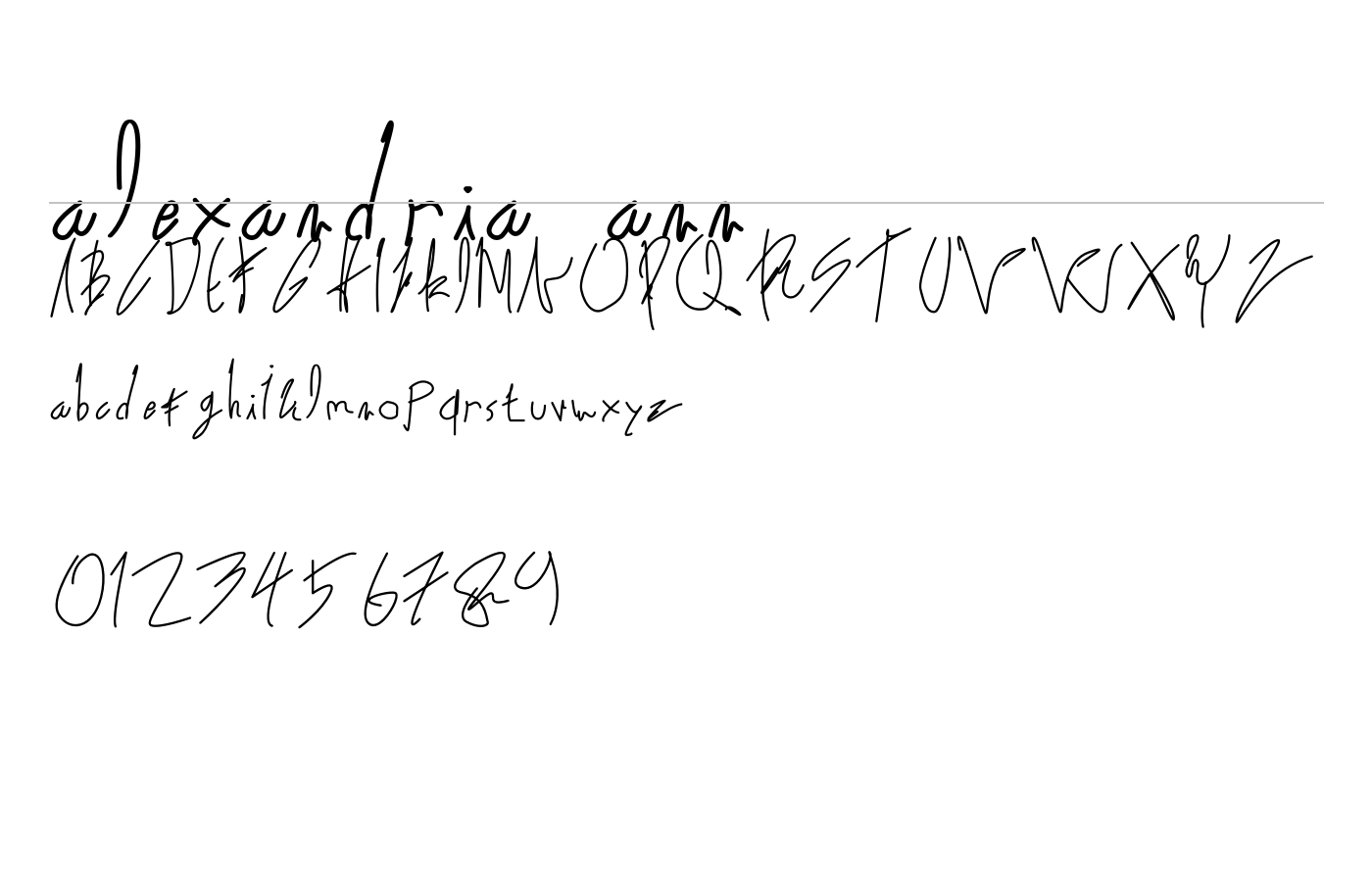
Alexandria Ann is a delicate, handwritten script font characterized by its thin, uneven strokes and tall, narrow letterforms that evoke a personal, casual feel. Its irregular spacing and lively, spontaneous style make it ideal for creative projects like invitations, logos, or artistic branding where a natural, expressive touch is desired. This font shines in designs that seek to convey individuality and charm with a slightly quirky, informal flair.
alexandria ann Font
About alexandria ann Font
| Font family | alexandria ann Font |